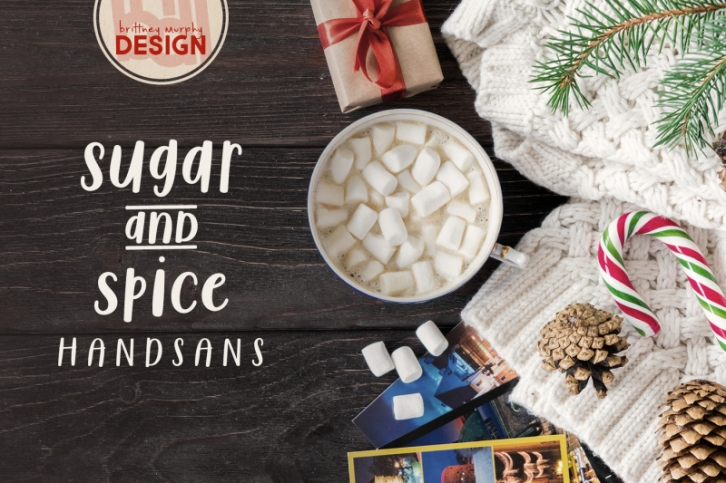
Sugar & Spice HandSans is a friendly and versatile sans in the handwritten style. Includes lowercase alternates, and small caps, so you can mix and match for a custom look.